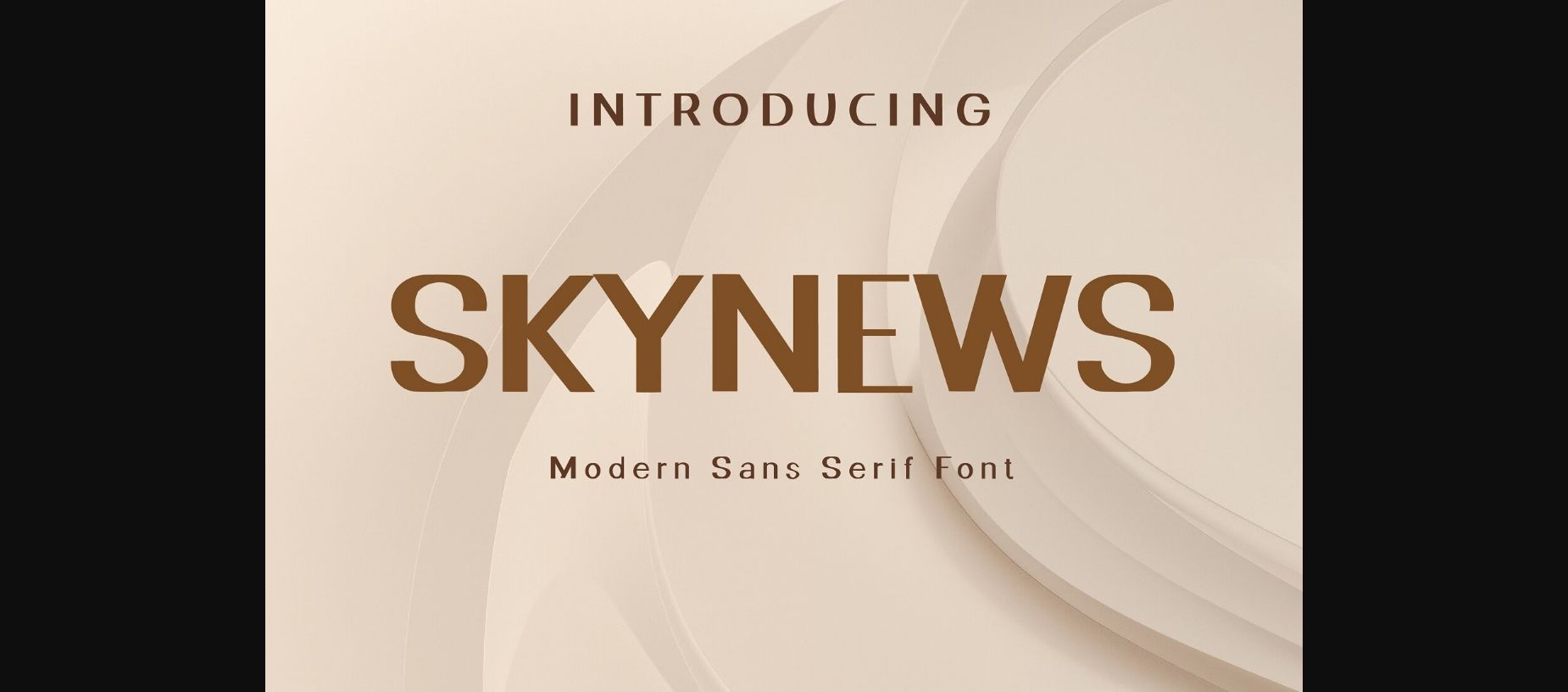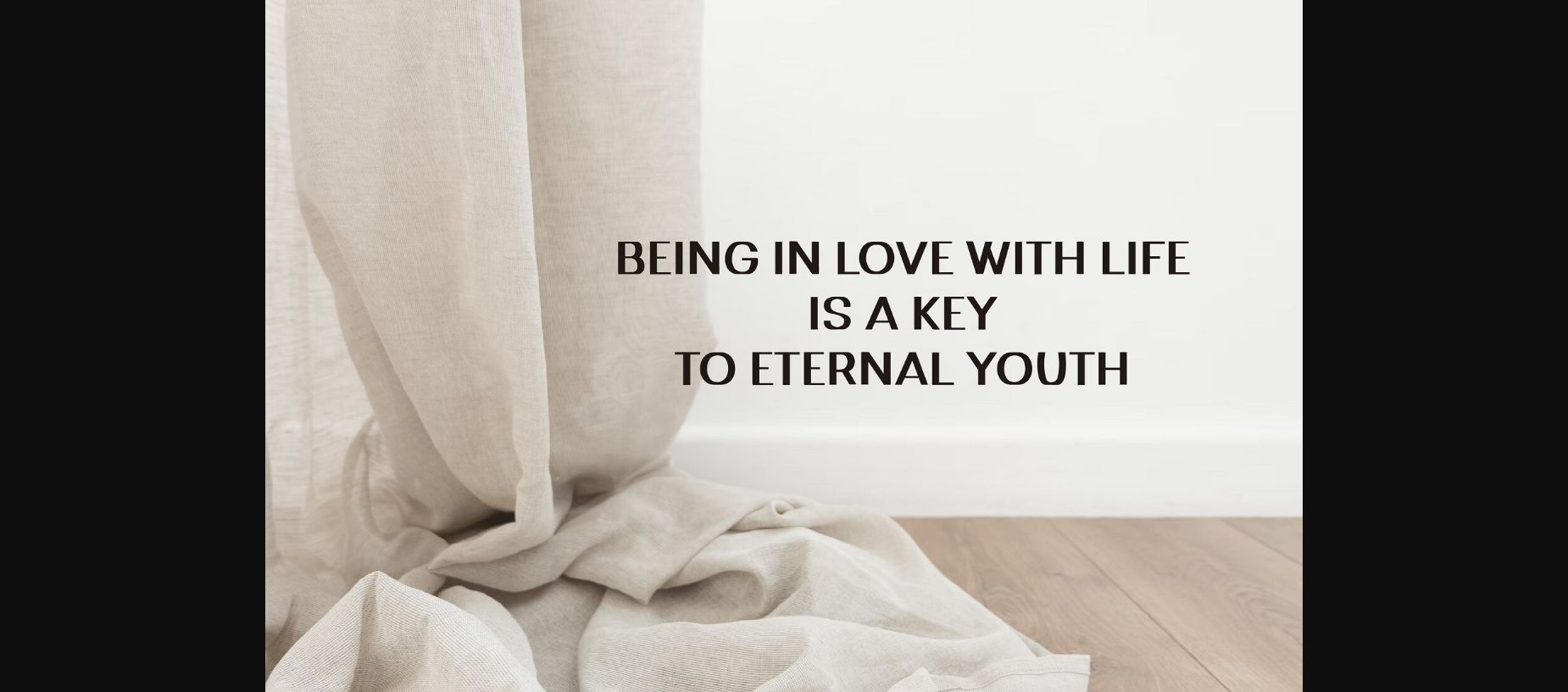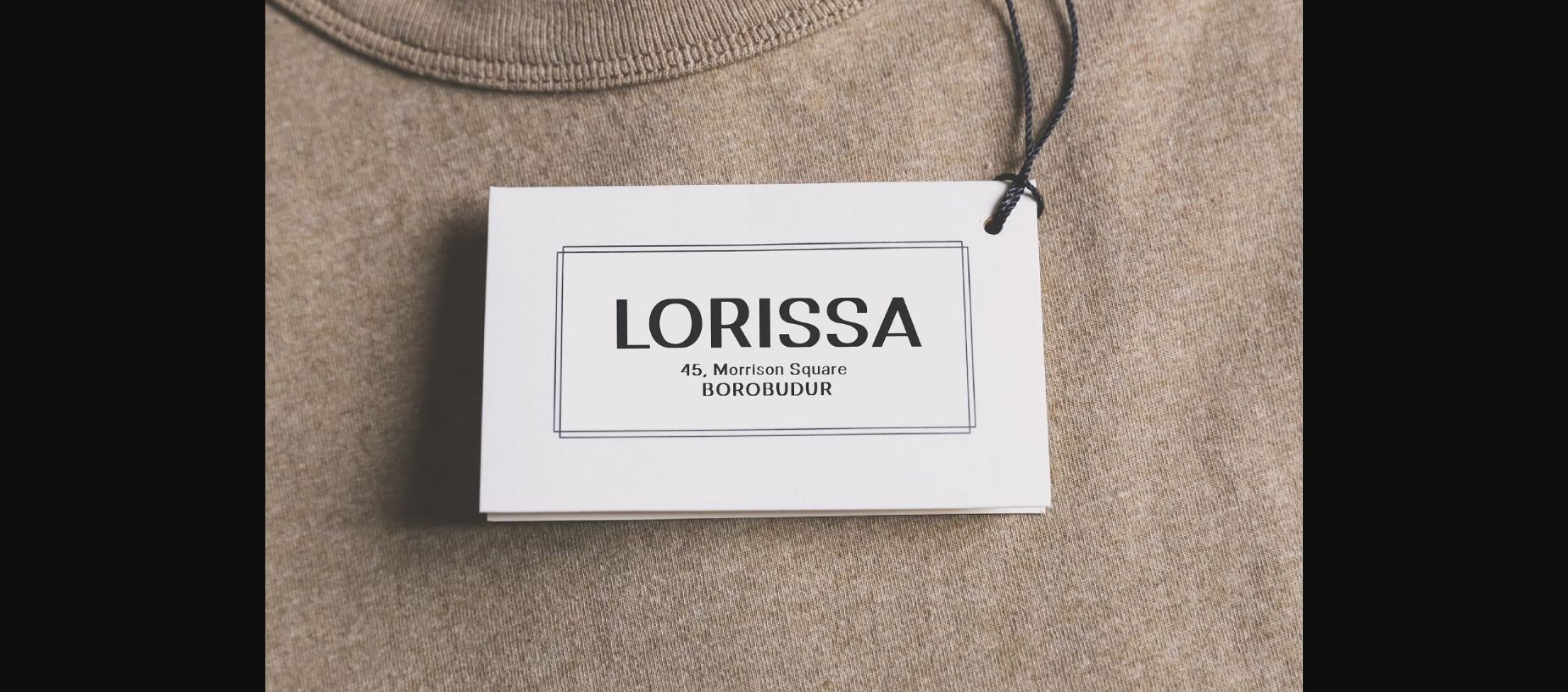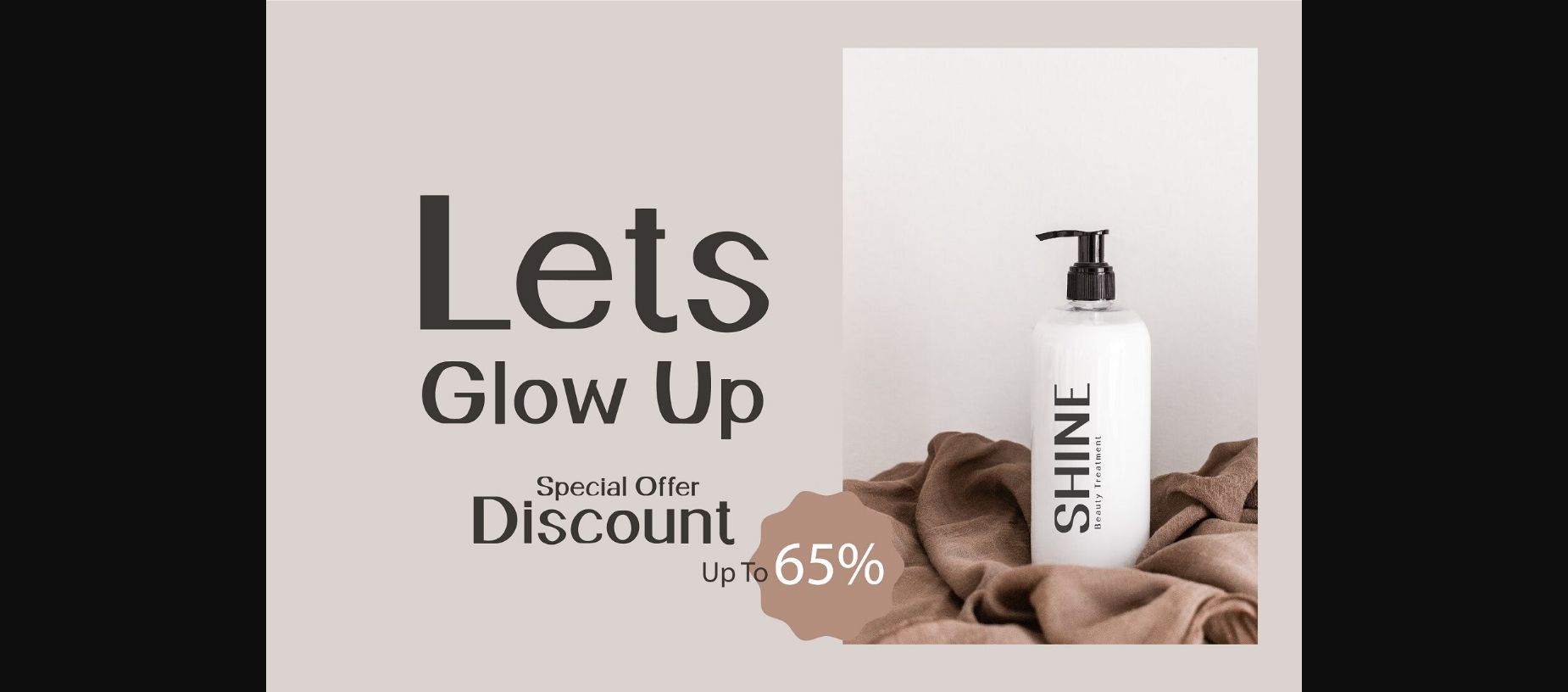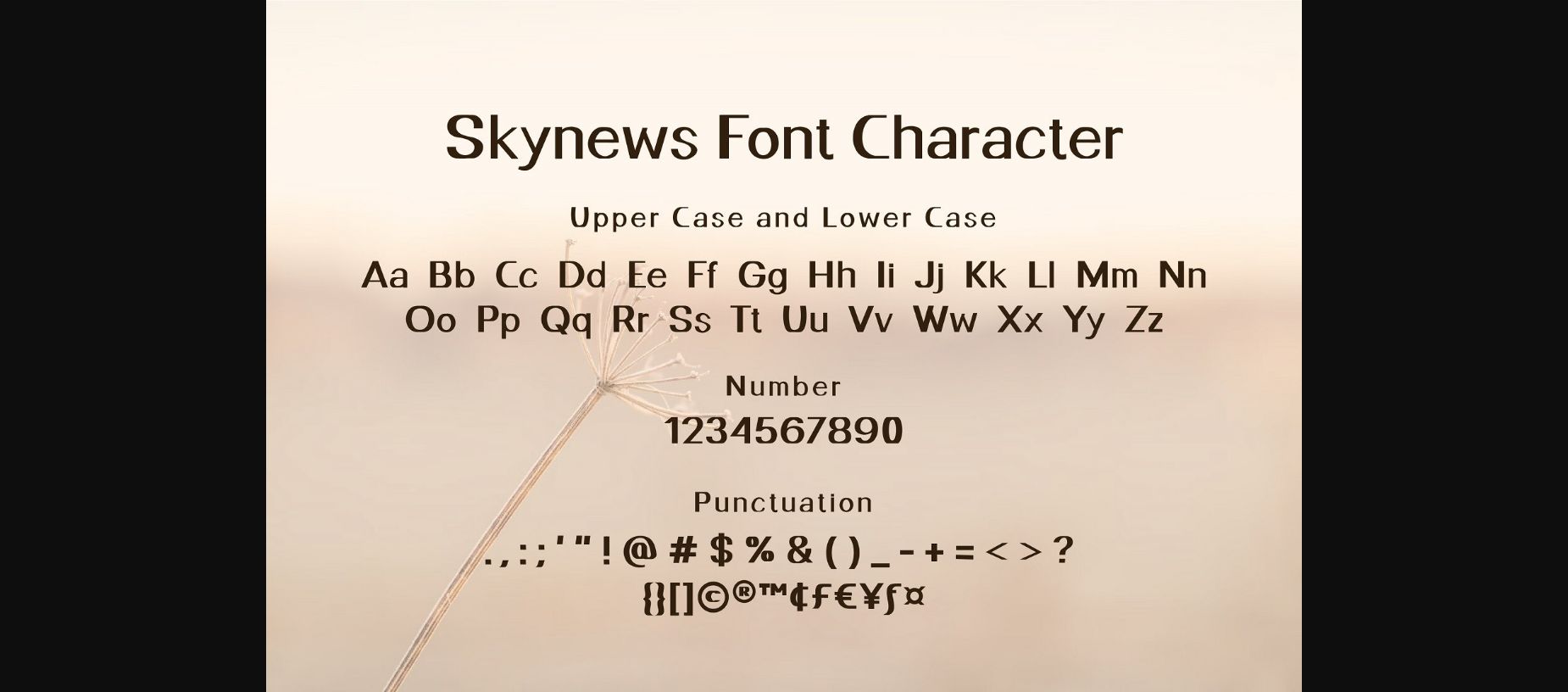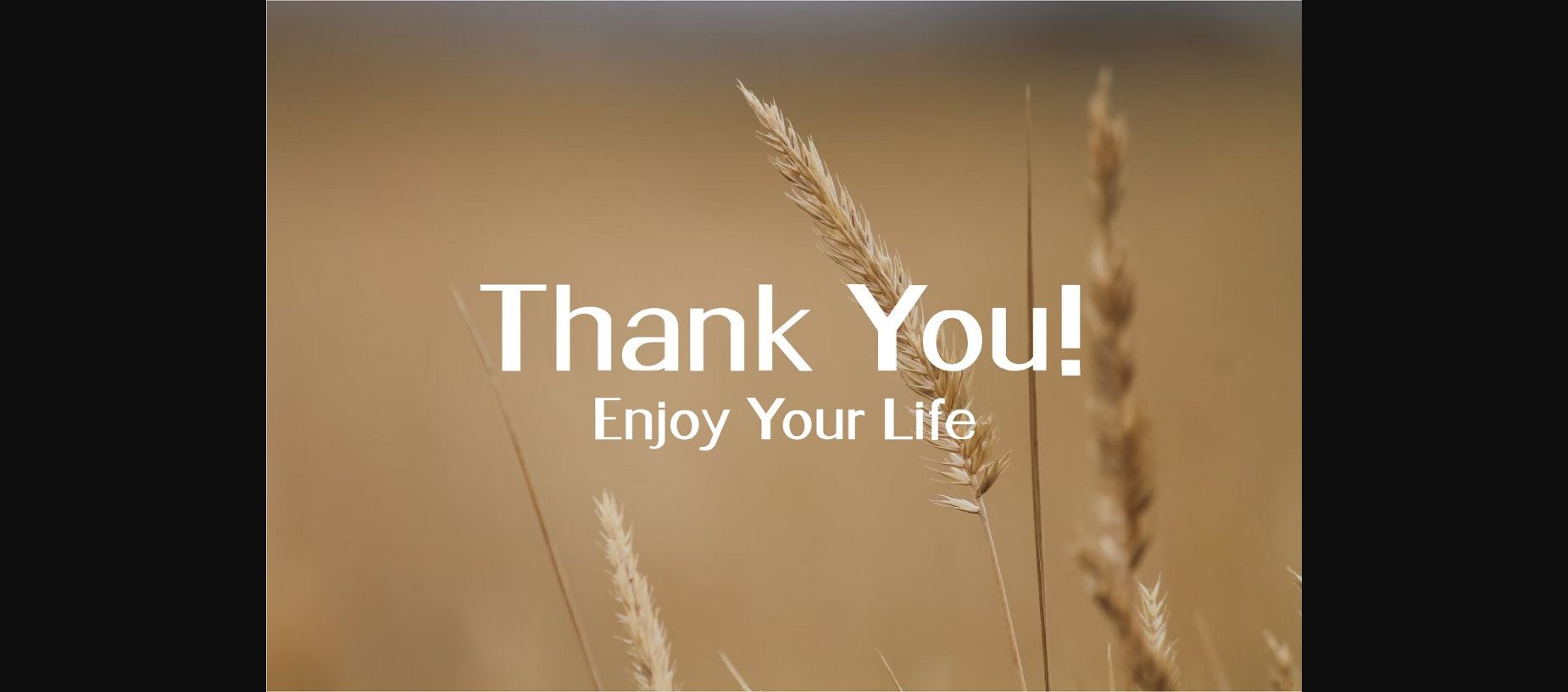
Skynews Font
About Skynews Font
Skynews: A sleek and modern sans-serif font that exudes contemporary elegance. Its clean lines and versatility make it the perfect choice for a wide range of design projects, from headlines to branding, giving your text a fresh and stylish look.